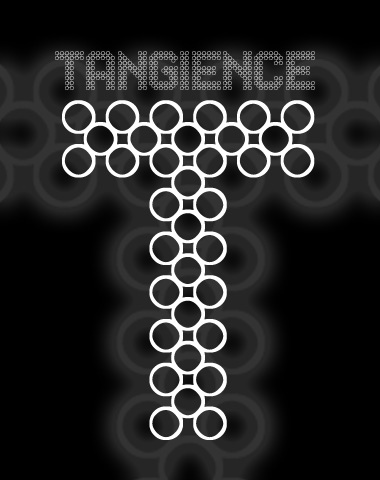
Tangience
Tangience. A fractionally scaled fontstruction utilizing a molecular coagulation of fused tangent circles. Best viewed magnified under an electron microscope.